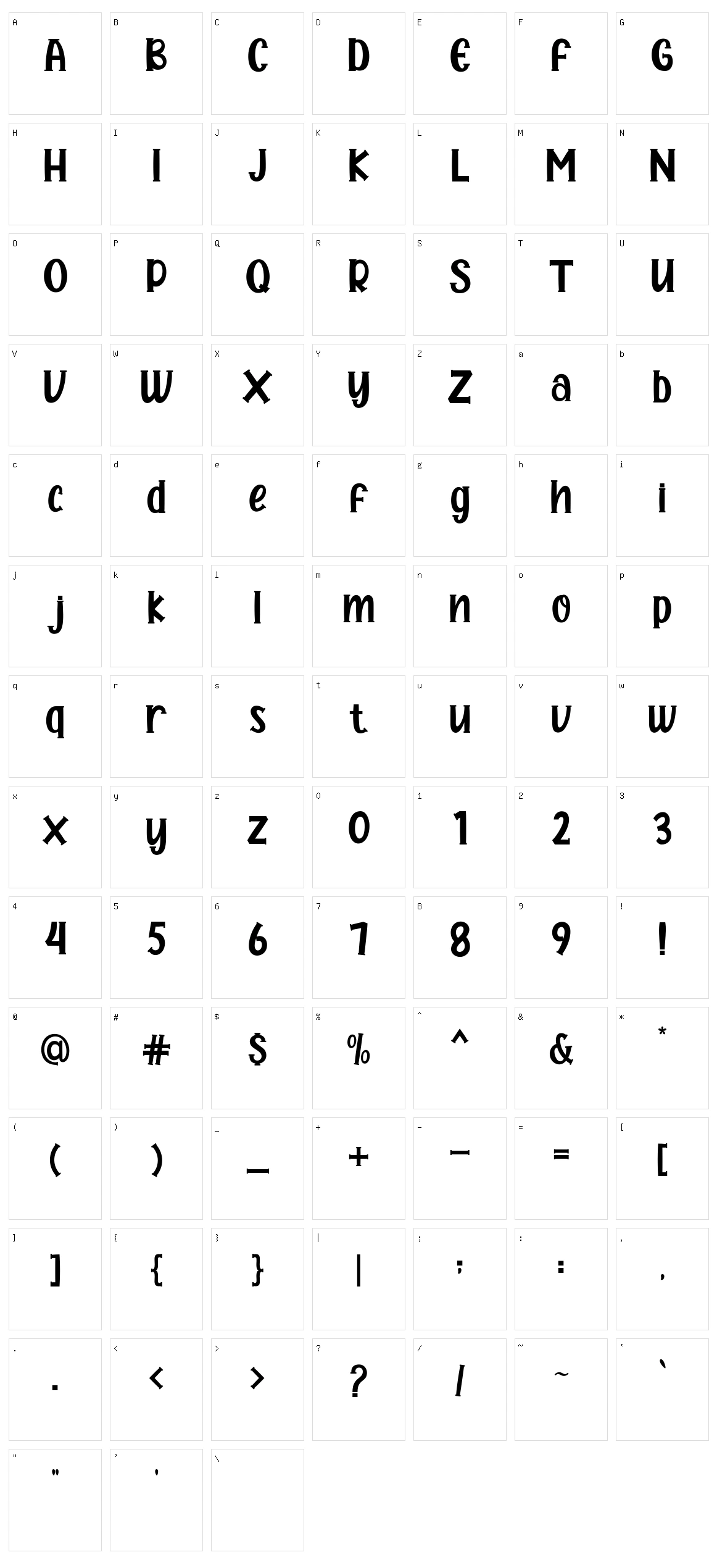
The free font Halloween Day's is carefully designed by Graphicxell, showcasing a thoughtful balance of creativity and usability and falls under the Halloween font style. When you download the ZIP file, it contains only 35.04 KB of font files, making it lightweight and quick to download. Please review the license details below to understand permitted usage and distribution rights. If license information is not available, we recommend using this font for personal projects only or contacting the author directly for commercial usage permissions.